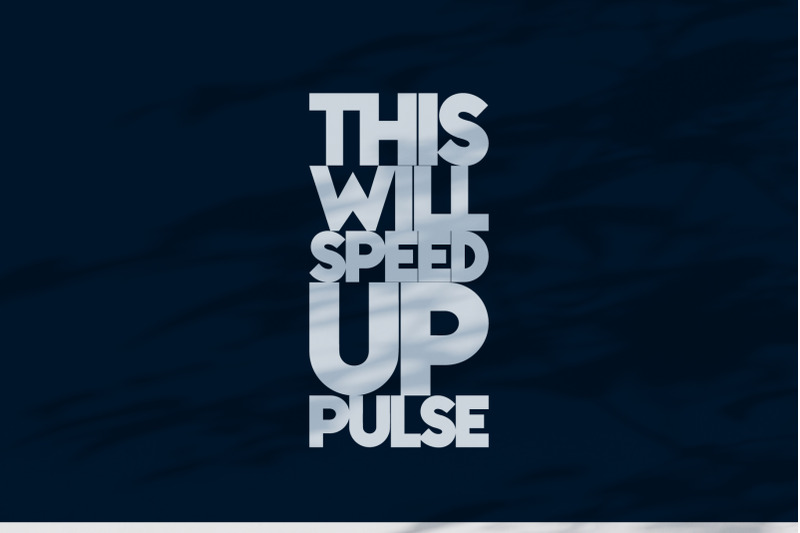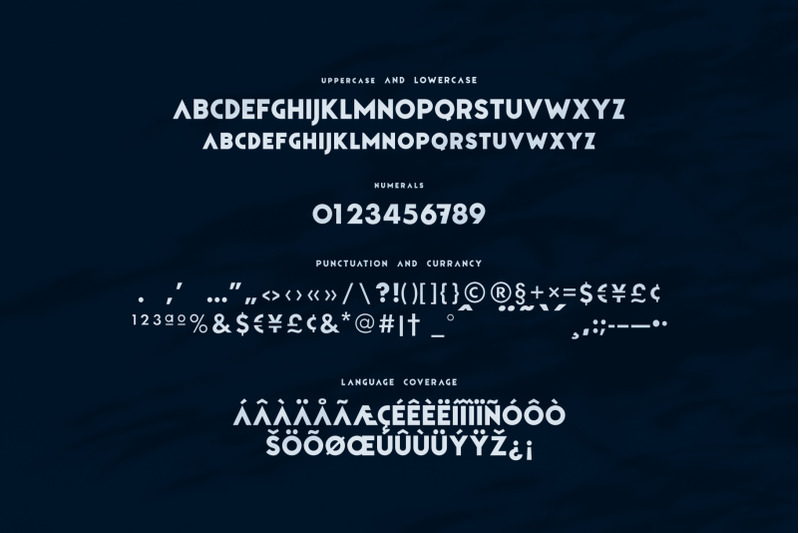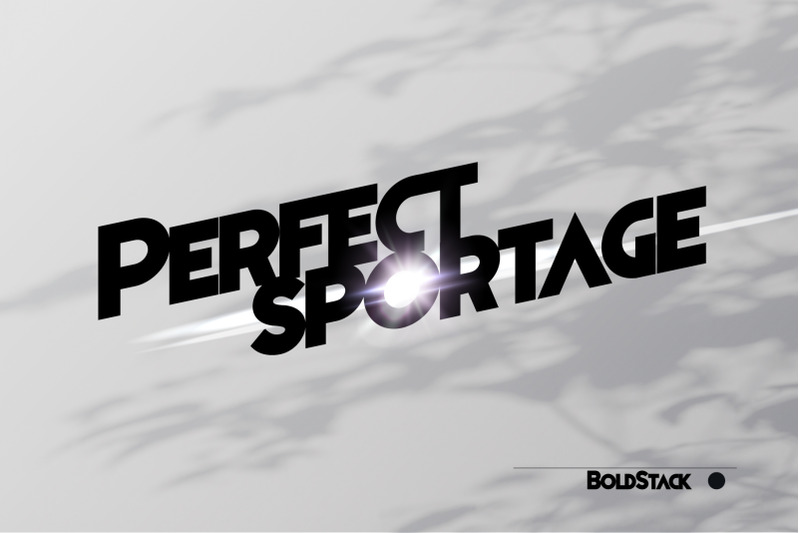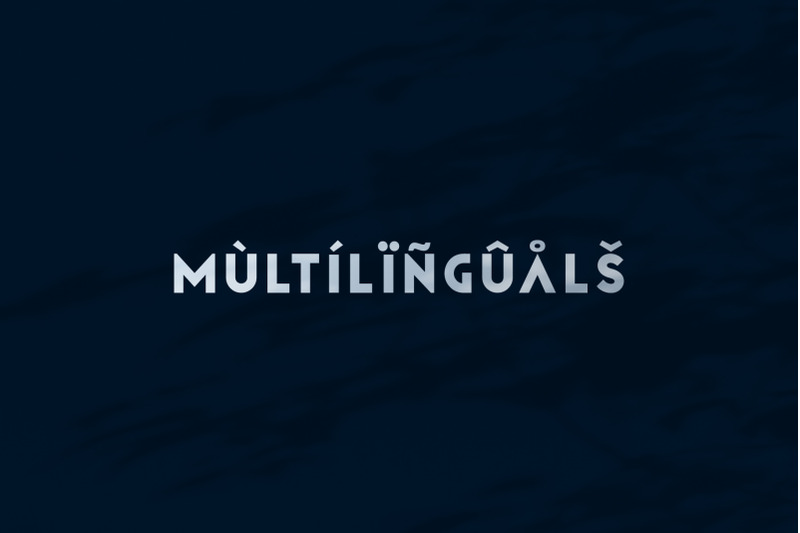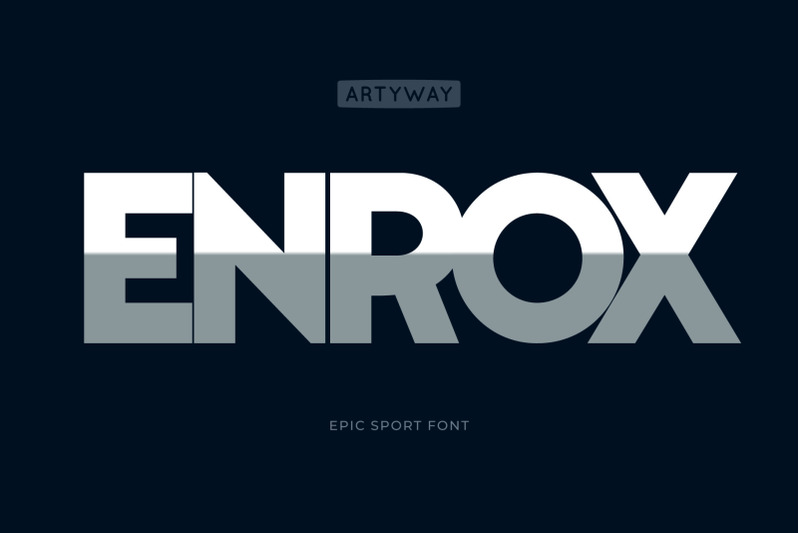
Heavy Sporty Headline Font
** Enrox Font is a strong, bold typeface that excels in delivering powerful messages with minimal space. ** *Perfect for impactful headlines, posters, and branding projects that require both clarity and intensity. Offering a clean and solid appearance that ensures your text stands out. Ideal for designers looking to create compelling visuals in editorial design, advertising, or digital media where space efficiency and readability are crucial* --- Including one .otf font file with: - Uppercase letter - Lowercase letters - Language coverage - Punctuation and currency - Numbers